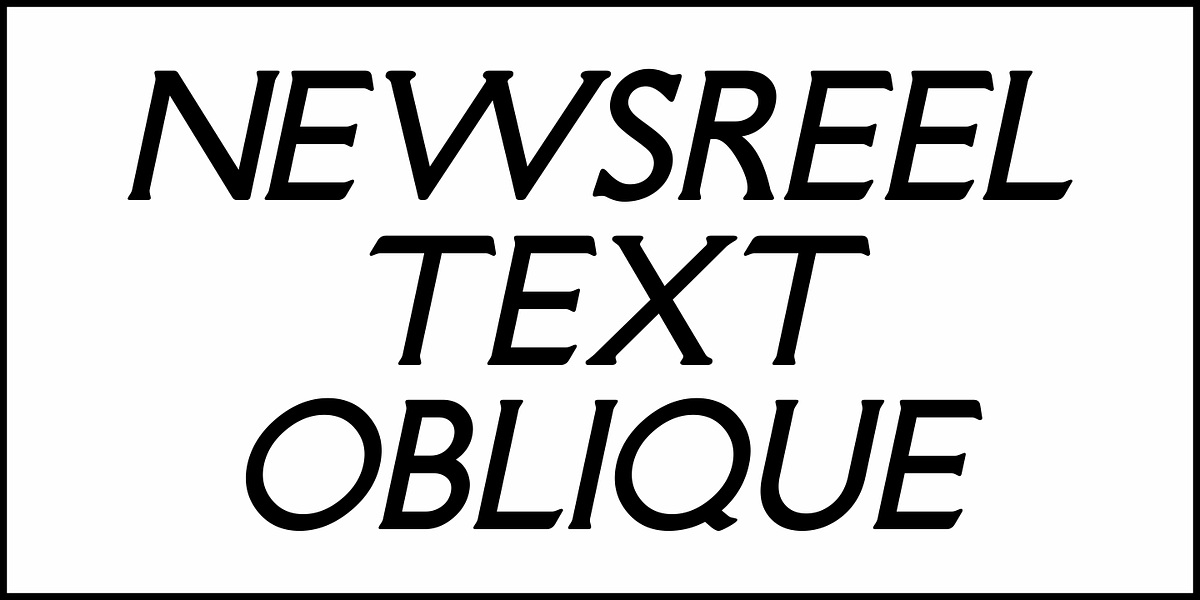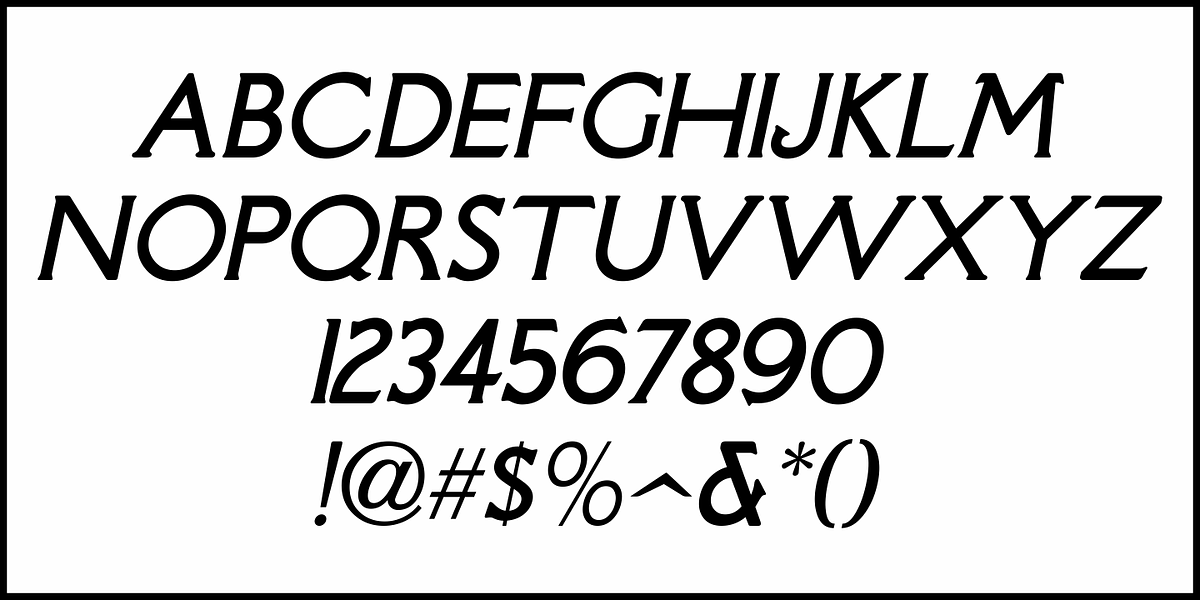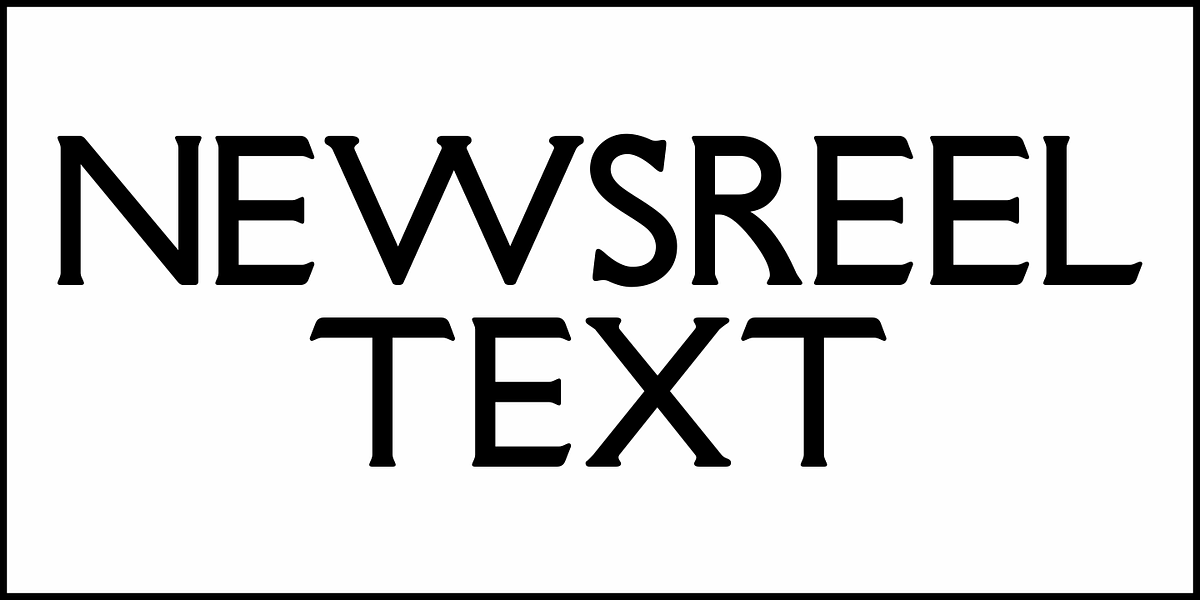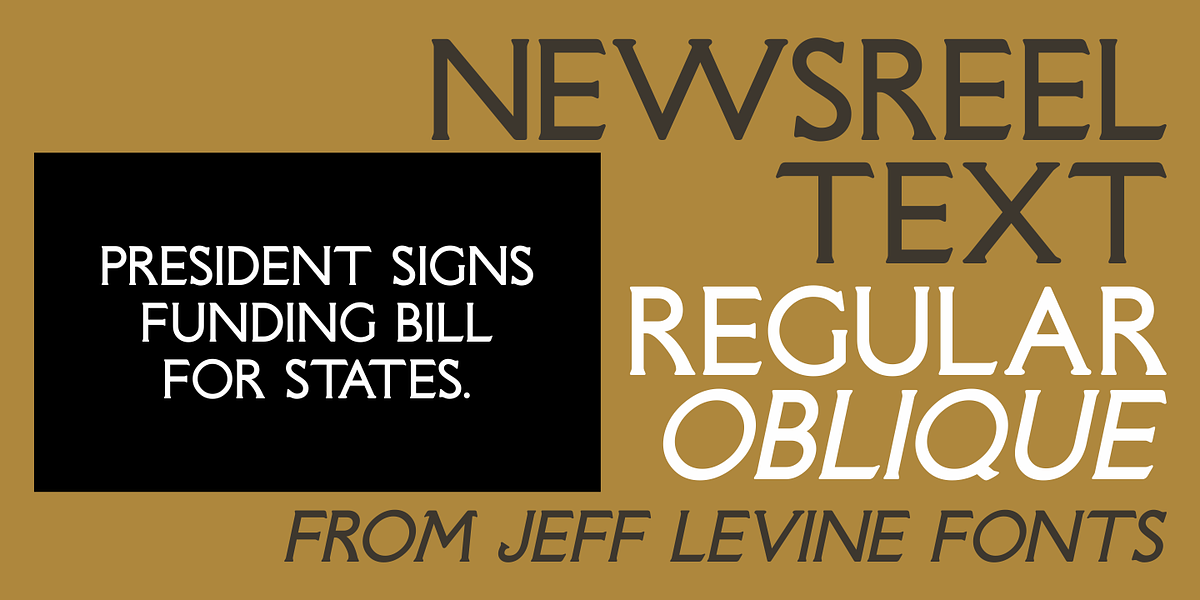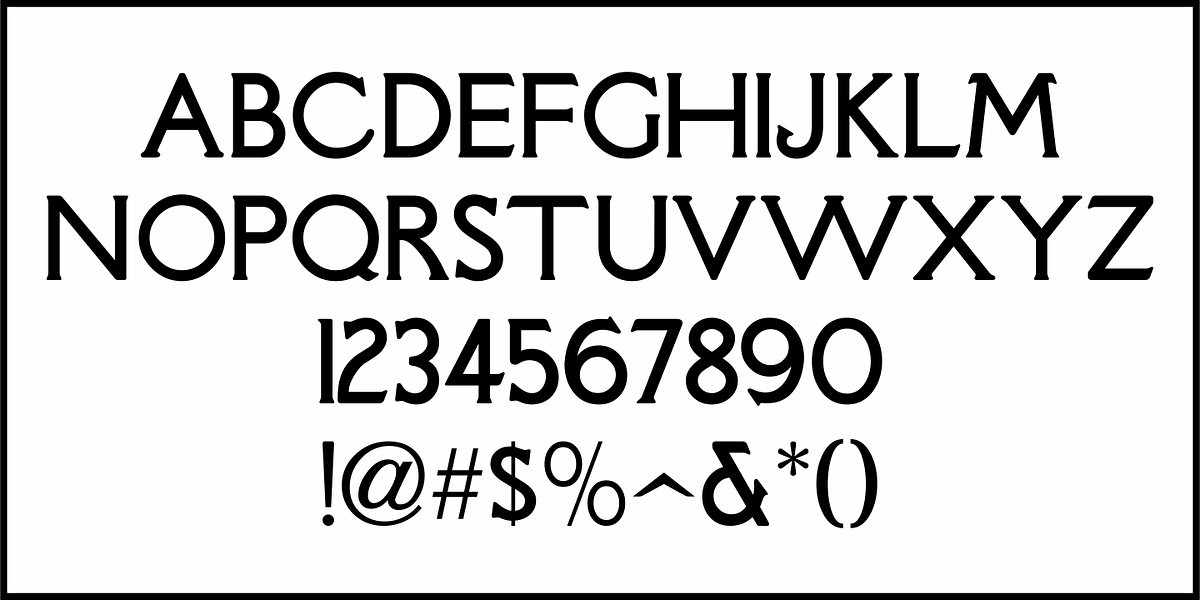
Newsreel Text JNL
Intertitle cards from a 1942 newsreel inspired the like-named Newsreel Text JNL, which is available in both regular and oblique versions.